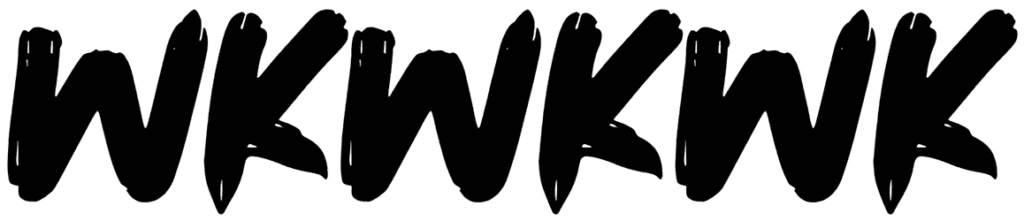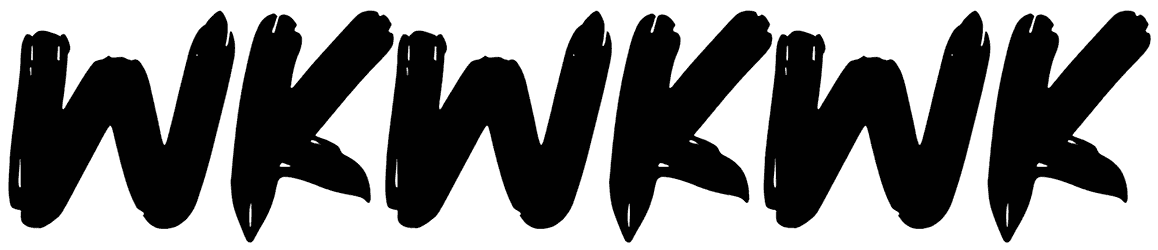
Wkwkwk Font
Wkwkwk is a vintage and painted font. The characters have a painted style and are placed in the group of brush fonts with smooth and simple lines. Although there are no small letters, you can use this brush font in designing many artistic projects, T-shirt designs, and paint brand logos.